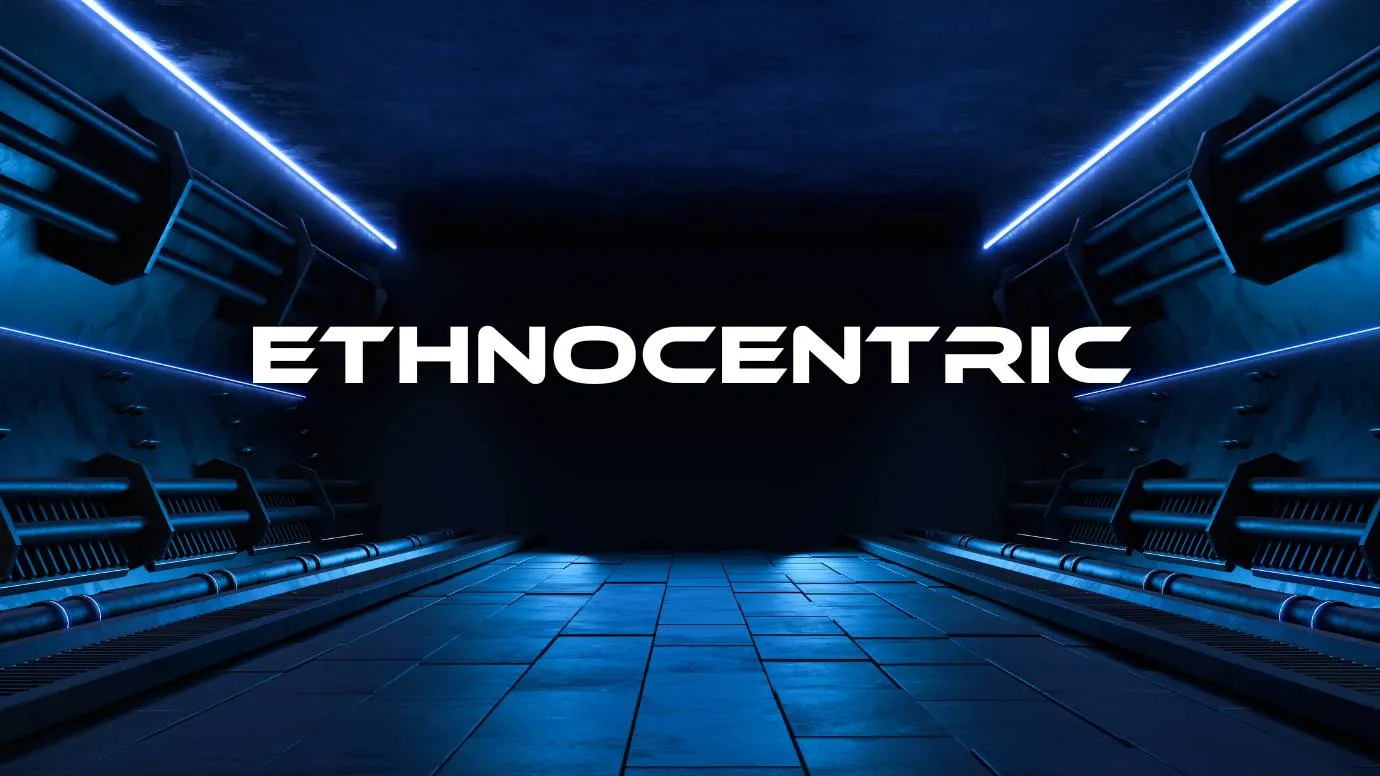
Ethnocentric is a very easily readable typeface in the font marketplace. This font family belongs to the display typeface family and it is good for display and printing projects. This font was released this typeface before 2005.
Each letter of this font was designed with sharp diagonal cuts and anomalistic gaps which make this typeface more unique from some other display typefaces. Nasa Font is very close to this typeface due to its same features.
NameEthnocentric Font
DesignerRay Larabie
FoundryTypodermic Font
StyleDisplay
Date Released2005